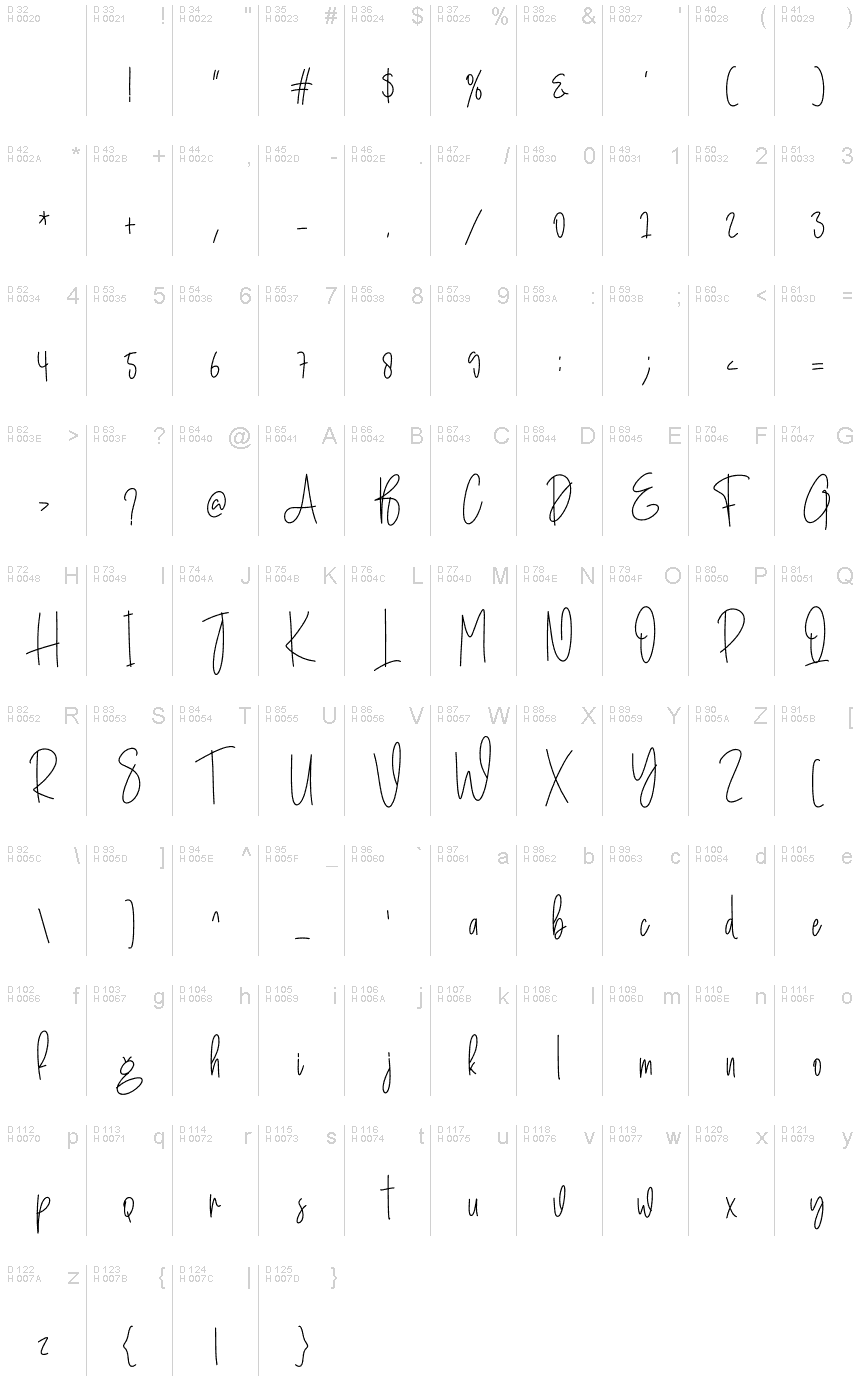
Commingsoon
Commingsoon by Scratchones is a fresh take on handwritten fonts that speaks to the lover of minimalist design and subtle elegance. Crafted with an extra-light weight and a condensed width, this font embodies a delicate yet confident presence on the page. The graceful, flowing lines mimic the personal touch of ink on paper, making it an ideal choice for invitations, branding projects, and editorial work where personality and distinction are key.
The airy spacing and refined curves lend Commingsoon a contemporary charm that is both aesthetically pleasing and functional. Its legibility is uncompromised despite its lightness, ensuring that your message is not only seen but also felt. Whether you're aiming to evoke sophistication in luxury branding or seeking to add a human touch to digital interfaces, Commingsoon’s style offers versatility across a wide spectrum of creative endeavors.